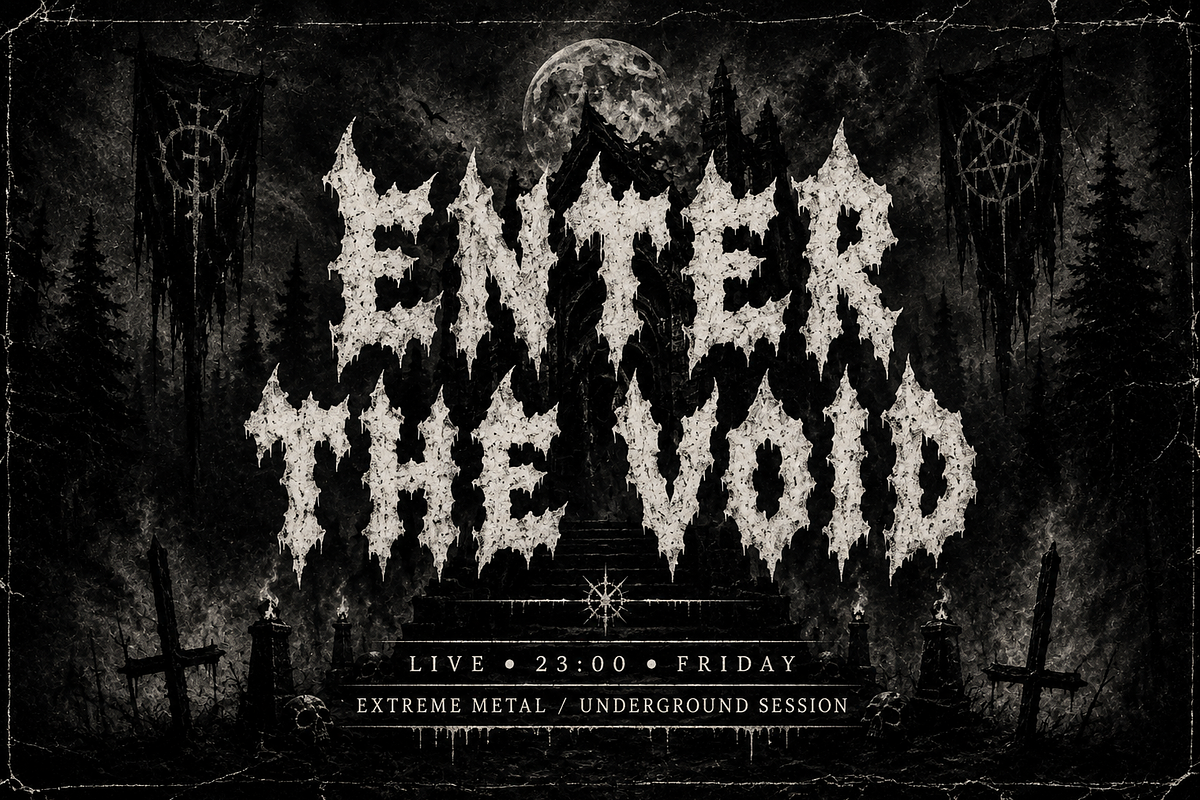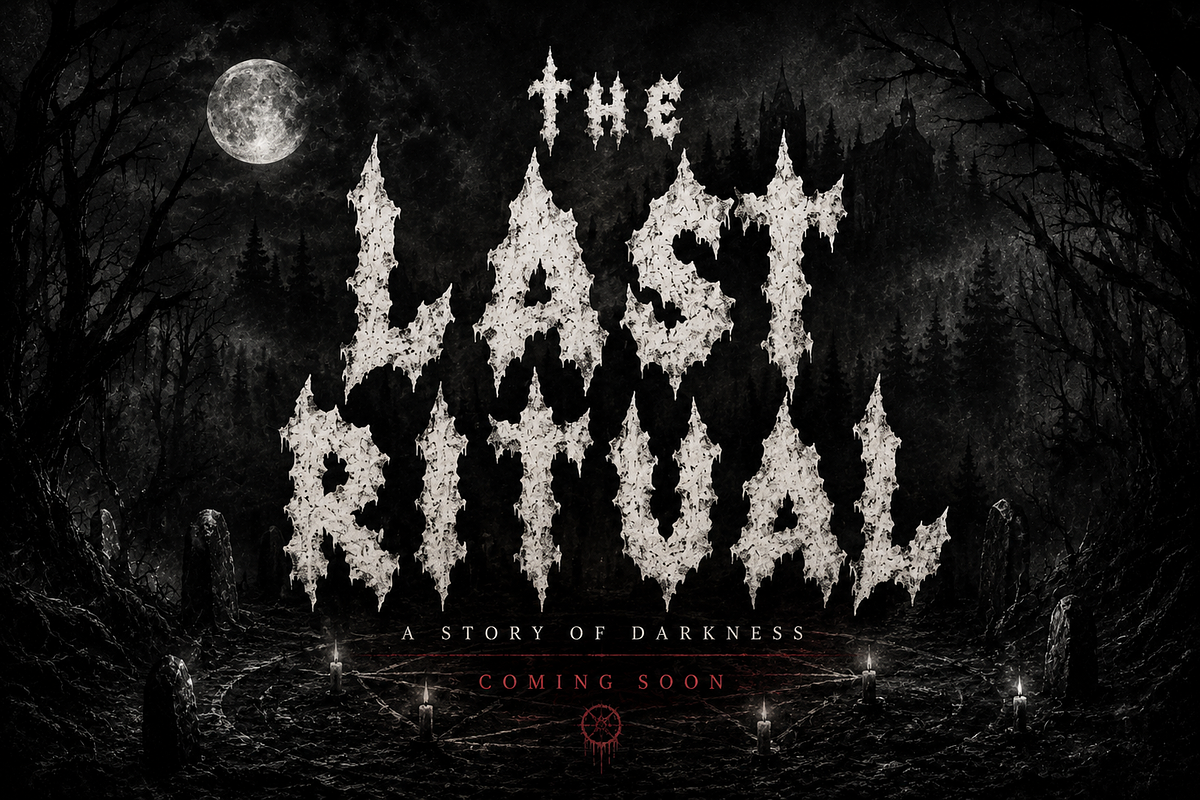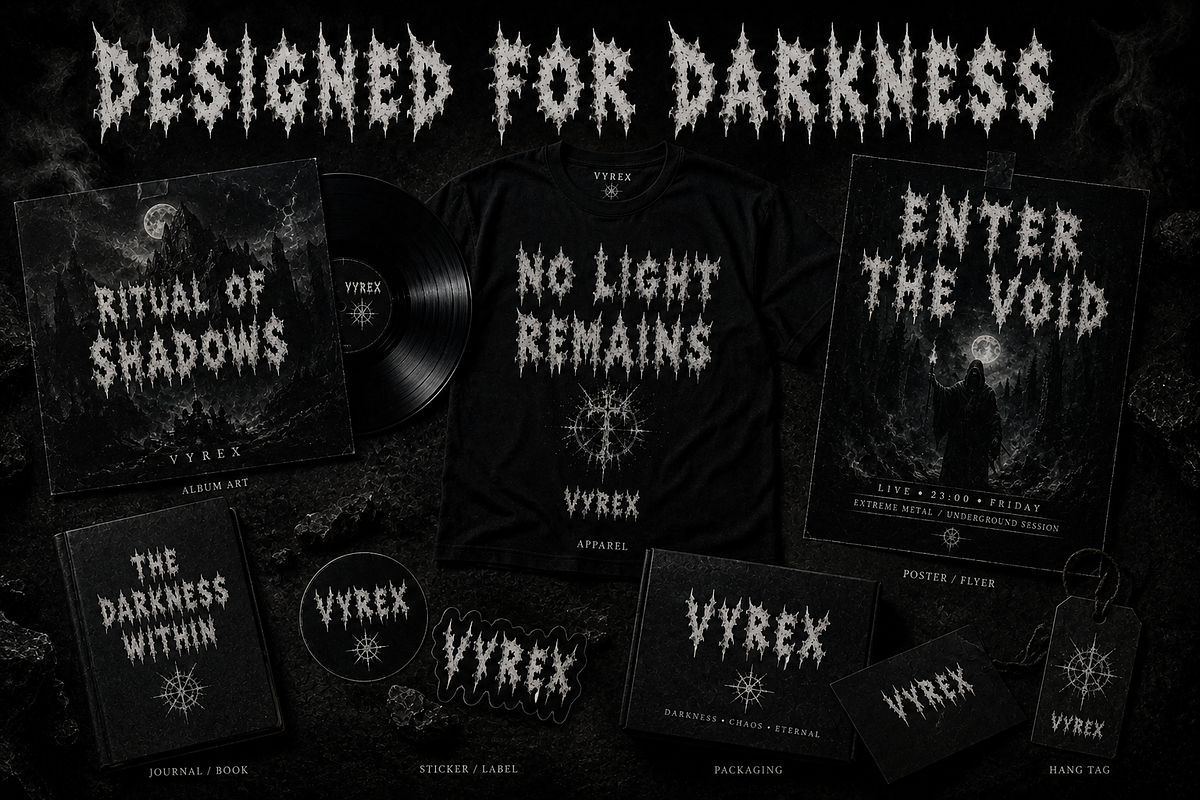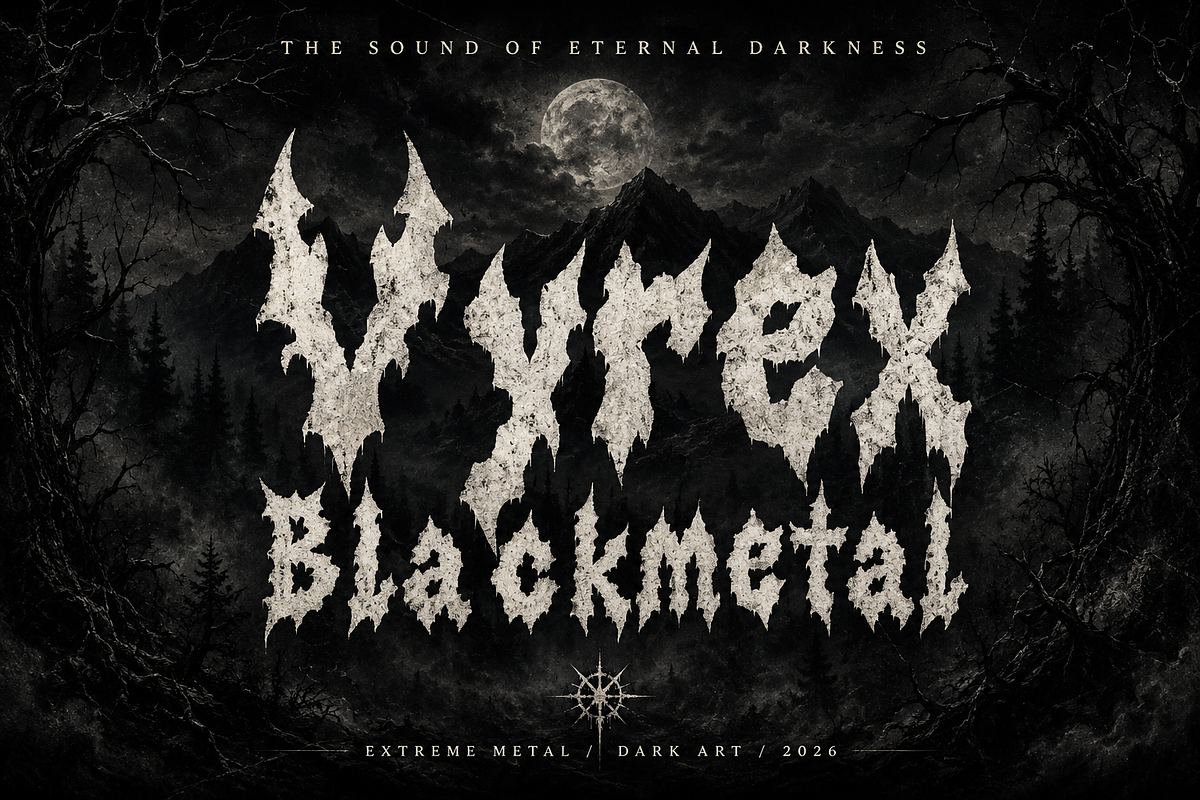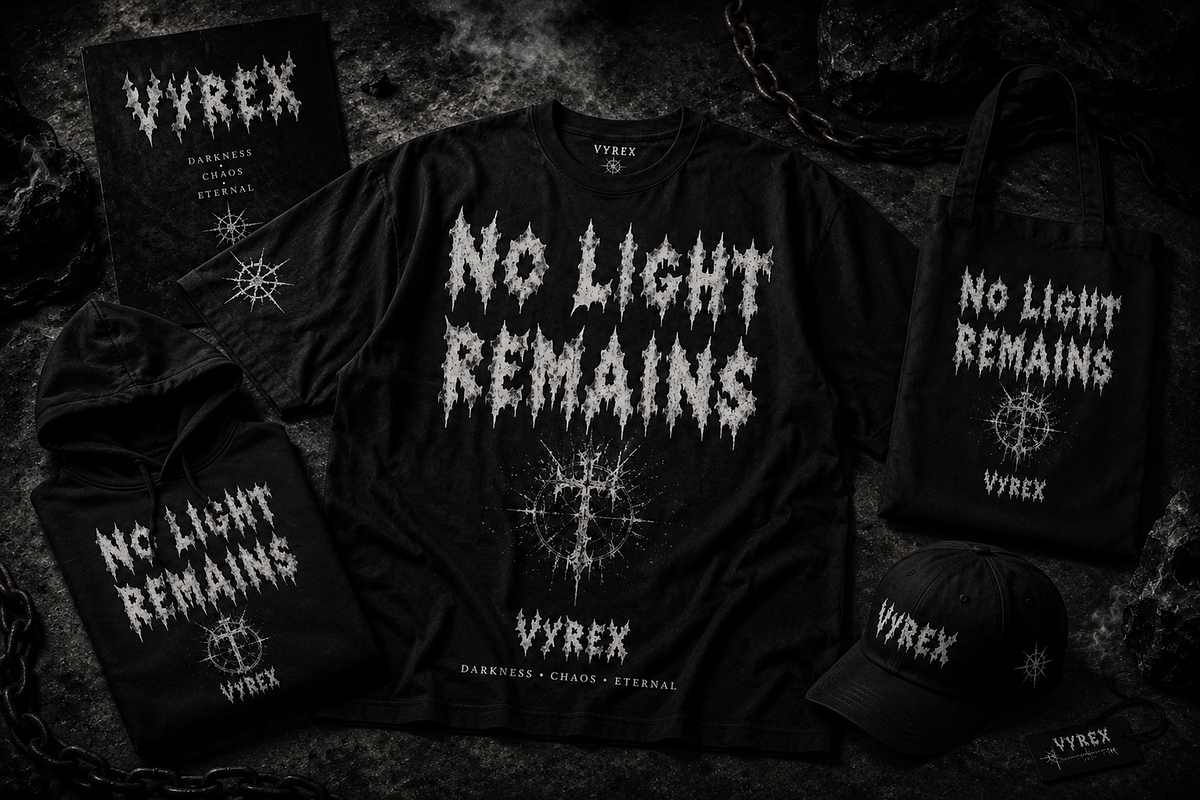
Vyrex Blackmetal
Vyrex Blackmetal — Dark Gothic Black Metal Horror Display Font
Vyrex Blackmetal is a dark, aggressive display typeface inspired by the raw atmosphere of black metal, gothic horror, underground music, and extreme dark aesthetics. Its sharp, distorted, jagged letterforms create an intense and sinister visual impact, making it ideal for designs that need a powerful and rebellious presence.
Perfect for black metal band artwork, album covers, horror movie titles, concert posters, dark branding, gothic designs, Halloween graphics, T-shirt designs, streetwear, merchandise, stickers, posters, book covers, packaging, and other alternative creative projects.
Vyrex Blackmetal works especially well as a bold headline or title font where you want to create an instantly recognizable dark and mysterious atmosphere.
Black Metal & Extreme Metal Artwork
Band Logos & Music Branding
Album & Single Covers
Horror Movie Titles
Gothic Posters
Concert & Event Posters
Halloween Designs
T-Shirt & Apparel Graphics
Streetwear Branding
Stickers & Merchandise
Book & Journal Covers
Dark Packaging
Album Merchandise
Underground Music Promotion